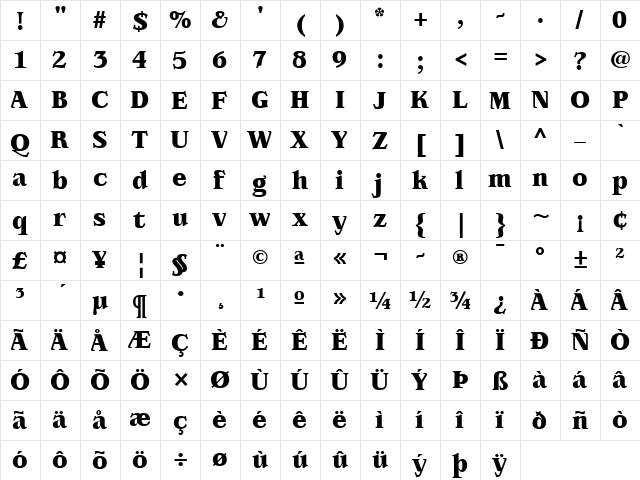
AIAlign Regular Font Preview
AIAlign Regular
AIAlign Regular Font Details
| Foundry | John Pugh |
Design Context for AIAlign Typeface
AIAlign offers clean, dependable letterforms without strong stylistic allegiance, making it a practical choice for designers who need flexibility.